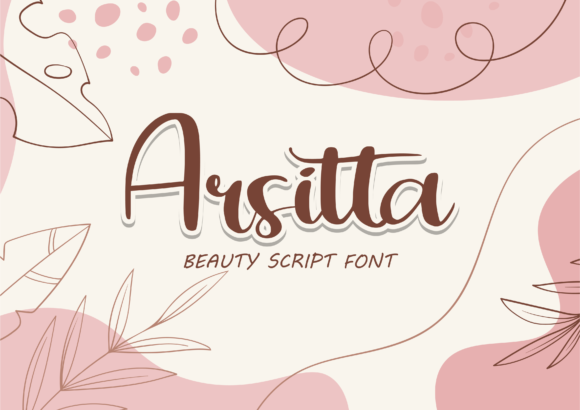
Arsitta Font: Unleash Your Creative Spirit with Unparalleled Elegance and Beauty
In the realm of digital artistry, where words dance and stories unfold, there lies a font that transcends the ordinary, captivating hearts with its exquisite grace and undeniable charm. Arsitta Font, a masterpiece of digital calligraphy, beckons you to explore a world of limitless creativity, elegance, and beauty.
Journey through the world of Arsitta, a script font that embodies the essence of refinement. Its meticulously crafted curves flow effortlessly, like a gentle breeze caressing a field of wildflowers. Each letter, a testament to the art of typography, carries within it a story waiting to be told.
With Arsitta as your creative companion, you hold the power to transform ordinary designs into extraordinary masterpieces. Whether you're a seasoned designer seeking inspiration or a novice eager to make your mark, Arsitta opens up a world of possibilities.
Indulge in the versatility of Arsitta, a font that effortlessly adapts to your every creative whim. Its delicate strokes lend a touch of sophistication to wedding invitations, while its playful charm adds a spark of whimsy to social media posts and branding projects. Unleash your inner artist and let Arsitta guide you towards design excellence.
Step into the world of Arsitta and experience the joy of effortless creation. Let your imagination soar as you craft designs that resonate with elegance, beauty, and a touch of magic. Arsitta is more than just a font; it's an invitation to unlock your creative potential and leave a lasting impression on the world.